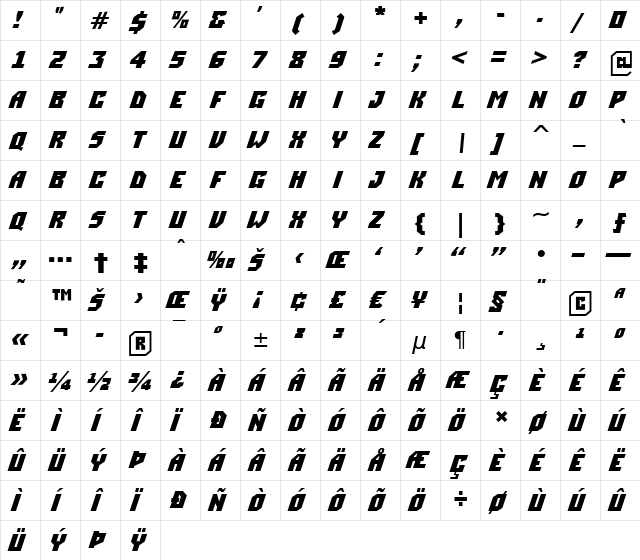
a_Simpler Bold Italic
| Designer | W.Chufarofsky & M.Slutsker |
Design Context for a_Simpler Typeface
a_Simpler is a composed and adaptable typeface that performs quietly and consistently across a wide range of design contexts. The slanted form adds forward momentum and visual energy. The heavy weight commands attention and anchors typographic hierarchies.
Pro Tip: Try a_Simpler for annotation and caption copy alongside an upright companion — the contrast in angle creates a dynamic but ordered typographic system.